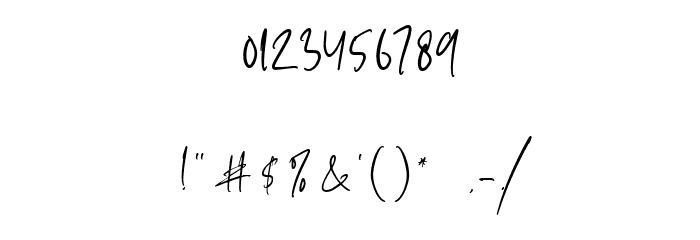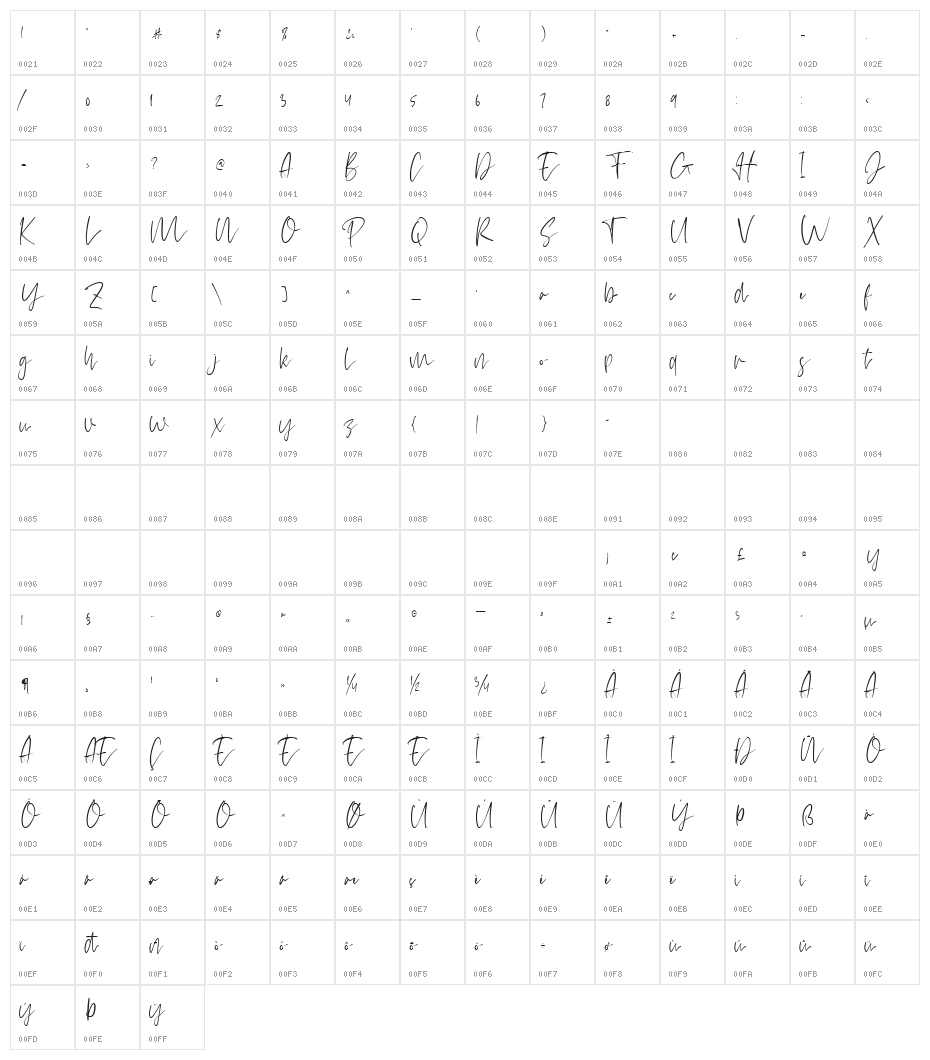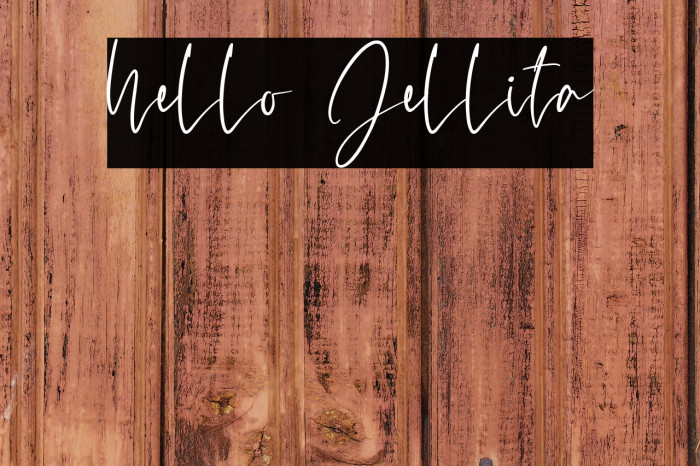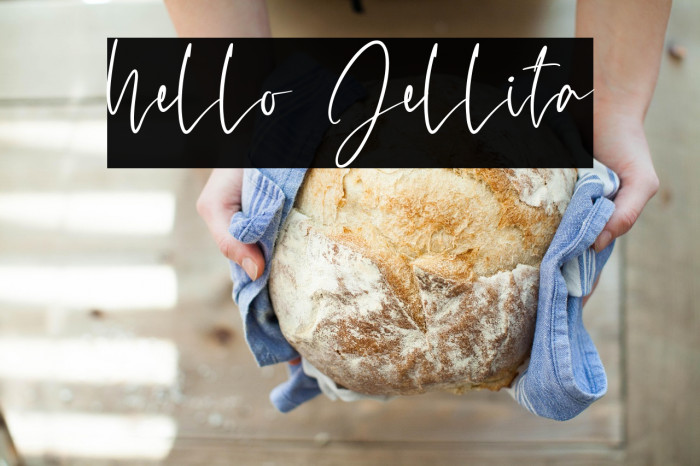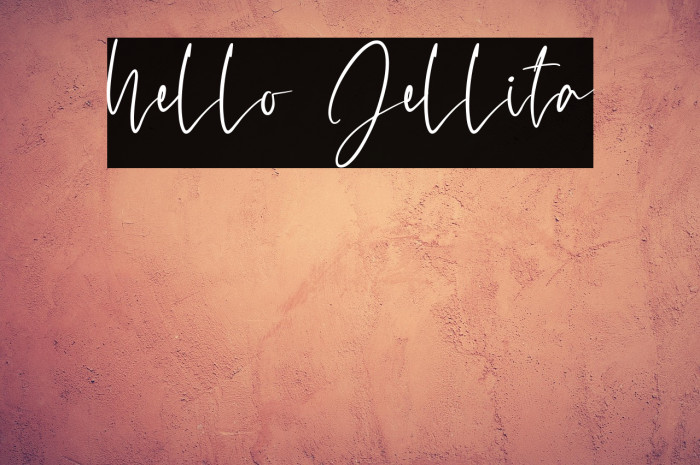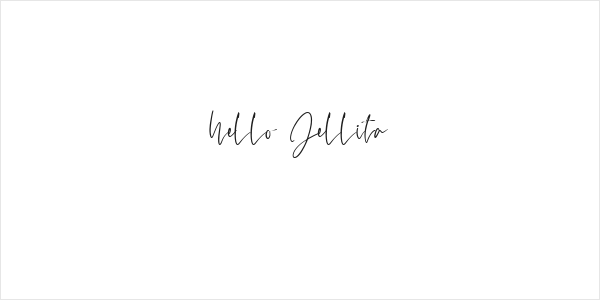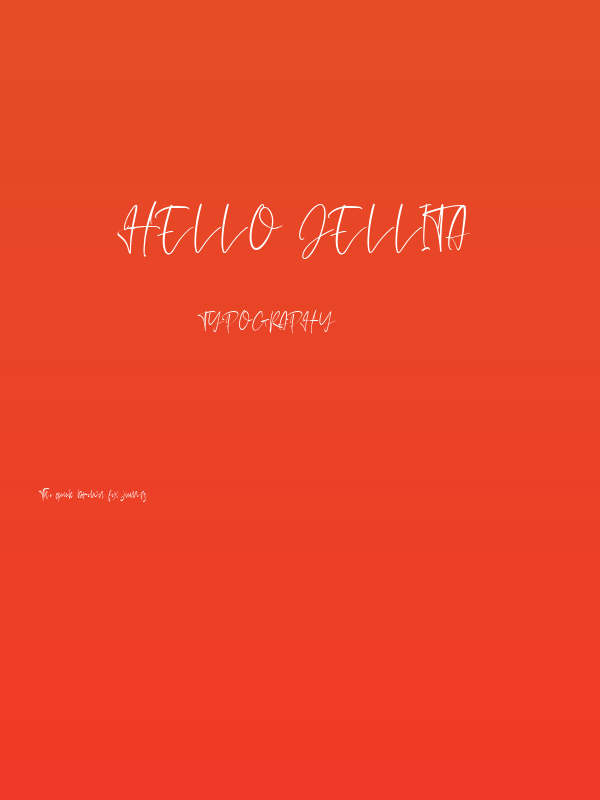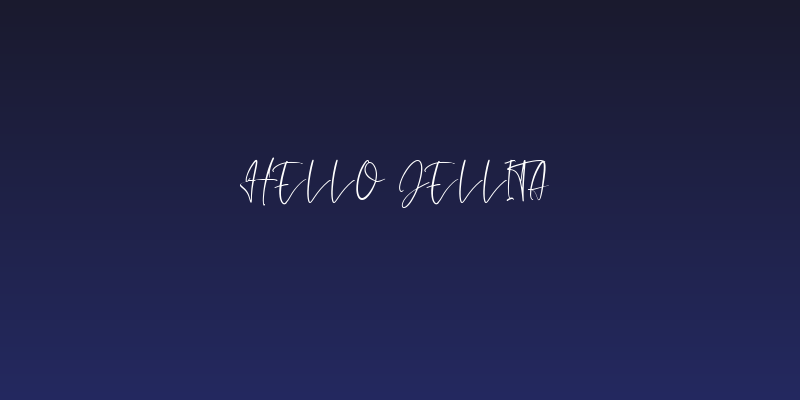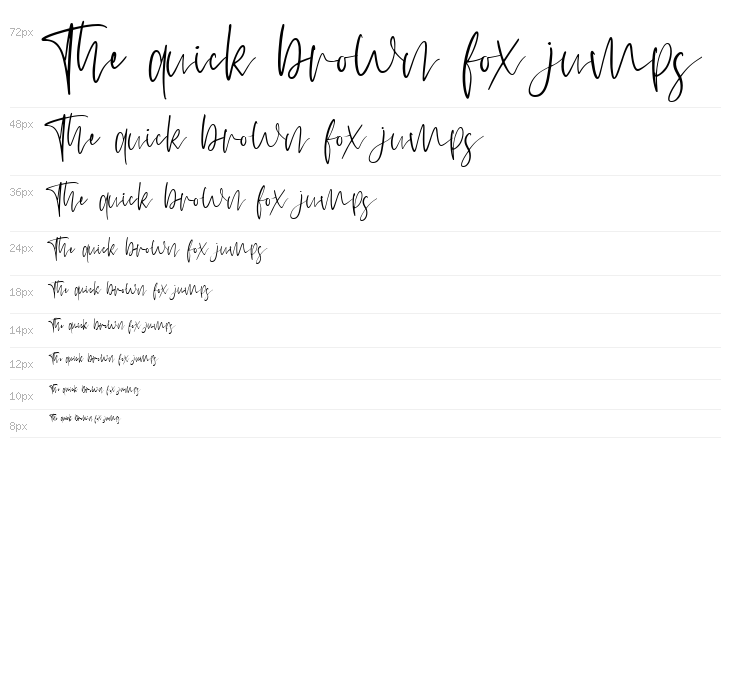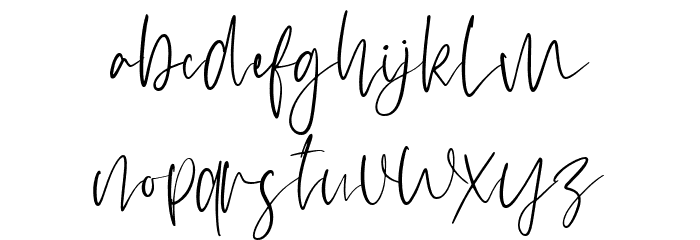
hello Jellita Font
hello Jellita Description
This font exhibits a lively and expressive handwritten style, characterized by its flowing and cursive letterforms. The uppercase letters are tall and elegant, with a slight slant that adds a dynamic feel. The lowercase letters maintain a consistent style, with loops and curves that enhance the handwritten aesthetic. Numbers and special characters are designed to match the overall style, ensuring a cohesive look. The strokes are smooth and fluid, with varying thickness that adds a touch of sophistication. This font is perfect for projects that require a personal and artistic touch.
| Proposed Projects | Ideal for wedding invitations, greeting cards, personal branding, and artistic projects. |